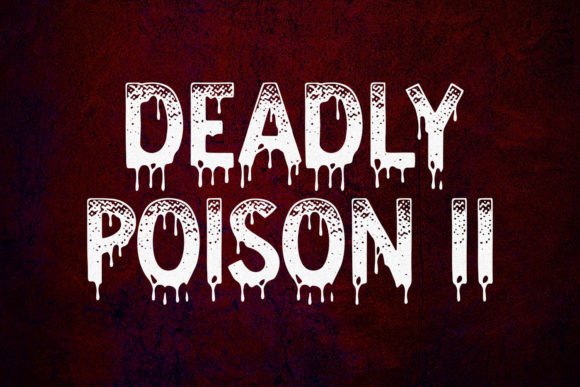
Unleash a Realm of Terror with Deadly Poison II: The Font That Embraces the Macabre
In the realm of digital design, where creativity reigns supreme, fonts hold the power to elevate your messages, captivating audiences and leaving an indelible mark. Among the vast array of typefaces, Deadly Poison II emerges as a mesmerizing creation, a font family born from the depths of imagination, meticulously crafted to evoke the allure of the macabre. With its haunting elegance and undeniable charm, Deadly Poison II is the perfect muse for those who dare to explore the darker recesses of art and design.
Immerse yourself in the world of horror, where Deadly Poison II reigns as the ultimate font for conjuring tales of terror. Its twisted ligatures and macabre flourishes dance across the screen, evoking a symphony of screams and whispers. Let your imagination run wild as you craft movie posters that send shivers down the spine, album covers that exude an aura of mystery, and video game titles that beckon players to confront their darkest fears.
But Deadly Poison II's allure extends far beyond the realm of horror. Its versatility knows no bounds, making it the perfect companion for projects that demand a touch of the extraordinary. Unleash your creativity and watch as your designs take on a life of their own, from fashion brands that exude an edgy elegance to outfits that command attention with their bold, statement-making style.
With Deadly Poison II as your font of choice, you'll discover a world of endless possibilities. Its intricate details and captivating curves will transform your designs into masterpieces of the macabre, leaving audiences spellbound and eager for more. Don't let this font's dark allure fool you; it possesses a versatility that knows no limits, ready to elevate your projects to new heights of creativity.
So, embrace the power of Deadly Poison II, the font that encapsulates the essence of horror and beauty, and let your imagination run wild. Dare to venture into the unknown, where dark fantasies come to life and creativity flourishes amidst the shadows.